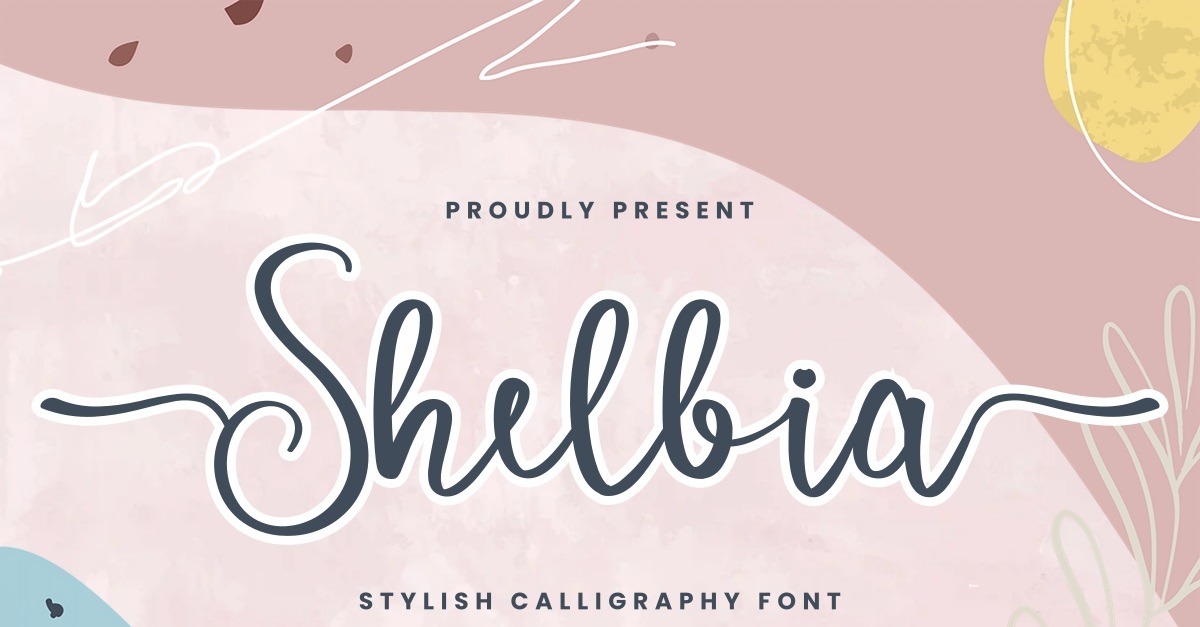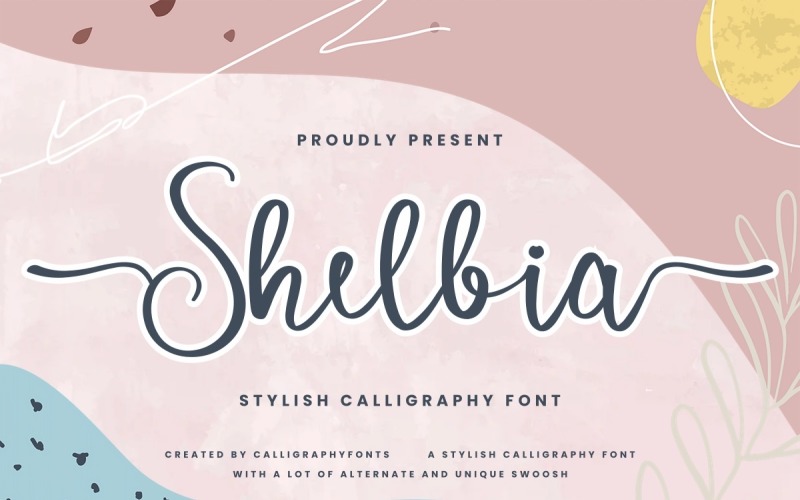
Shelbia Beautiful Brush Script Font
Shelbia Font is a stylish calligraphy font that is suitable for brand fashion, headline, invitation, logos, packaging, quote, signature, wedding and other needs. This font is classy, simple, but still authentic. Add this font to your most creative ideas, and notice how it makes them stand out!
Shelbia Font is a handwritten script font. You will get full set of lowercase and uppercase letters, numerals and punctuation, multilingual symbols, extra ligatures, beginning and ending swashes. It has an authentic calligraphy look making it perfect for branding and digital designs. This font is PUA encoded which means you can access all of the glyph and swashes with ease!